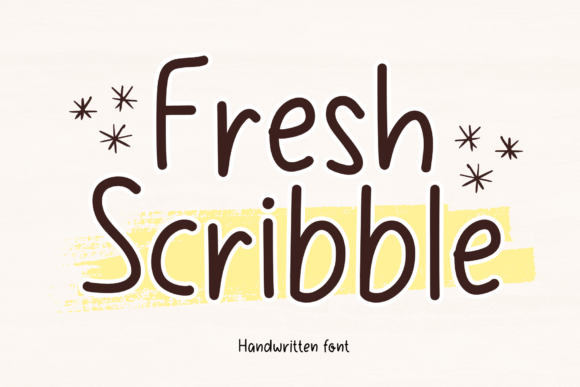
Unleash Your Creativity with the Perfect Handwritten Touch
You know that moment when you’re brainstorming ideas for your next design project, and suddenly, a spark of inspiration hits you? Maybe it’s a conversation with a friend, a beautiful sunset, or a simple doodle on a napkin. Whatever it is, it’s that instant when creativity flows, and your imagination runs wild.
When you need to add a personal touch to your designs, that’s where the Fresh Scribble Font comes in – a charming, handwritten font that embodies the essence of playfulness and authenticity. Perfect for a wide range of projects, from blog posts and logos to invitations and planners, this font is a valuable addition to any designer’s toolkit. With the Fresh Scribble Font, you can infuse your designs with a sense of warmth and character that’s sure to captivate your audience.
Fresh Scribble Font Key Features
- Font Family: Fresh Scribble Font is a unique, hand-drawn script font designed to add a touch of elegance and sophistication to any design.
- Unique Characteristics: Fresh Scribble Font features a distinctive, handwritten style with varying line widths, subtle imperfections, and a touch of whimsy, making it perfect for creative projects, invitations, and branding materials.
Designer Review: Fresh Scribble Font
Overall, I think Fresh Scribble Font is a fun and playful addition to any design project. ✨ The irregular brushstrokes and natural feel give it a hand-drawn look that’s perfect for creative and whimsical designs. ✨ I’ve had great success using it for children’s book illustrations, educational materials, and even advertisements for art supply companies.
One thing I love about Fresh Scribble Font is its versatility. ✨ It comes in a range of weights, from light to bold, which makes it easy to use in a variety of contexts. I’ve also found it to pair well with a range of other fonts, from serif to sans-serif.
- ⚠️ Limited character set: The font only includes a standard character set, which may not be ideal for languages that require a wider range of characters.
- ⚠️ Limited support for special characters: Some special characters, such as accents and symbols, may not display correctly in the font.
- ⚠️ May not be suitable for formal or professional designs: The font’s playful, hand-drawn feel may not be suitable for more formal or professional designs.
Overall, I think Fresh Scribble Font is a great addition to any designer’s toolkit. While it may have some limitations, its versatility and playful feel make it a great choice for a wide range of projects.
Getting the Most Out of Fresh Scribble Font
Use Fresh Scribble Font to add a playful and creative touch to your designs. Pair it with bold fonts for contrast, or use it in combination with bright colors to make your design pop. Experiment with different font sizes and styles to achieve the desired effect.
Fresh Scribble Font is perfect for creating eye-catching titles, headings, and captions. Use it in social media graphics, blog posts, and marketing materials to add a touch of whimsy and personality. It’s also great for creating hand-drawn or handwritten text effects.